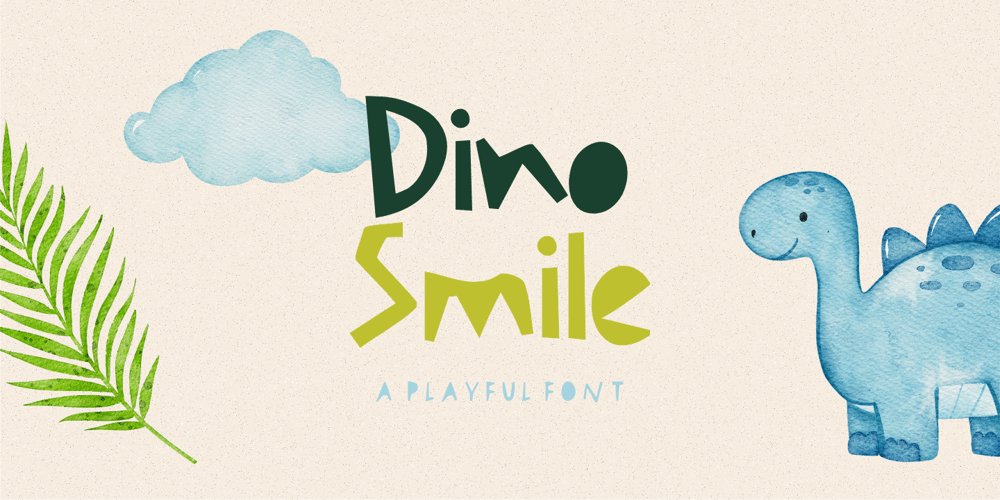
Dino Smile Font Family was designed by Risca Anitawati and published by Reyrey Blue Std. Dino Smile contains 1 styles and family package options. Dino Smile is a playful handwritten typeface. It is perfect for headings, logotypes, book covers, printed quotes, apparel designs, flyers, greeting cards, etc. It comes with multilingual support also. This unique font will make your project shine, super sweet, and lovely.Features :· All Uppercase and Lowercase· Number & Symbol· Supported Languages· Ligatures· PUA Encoded